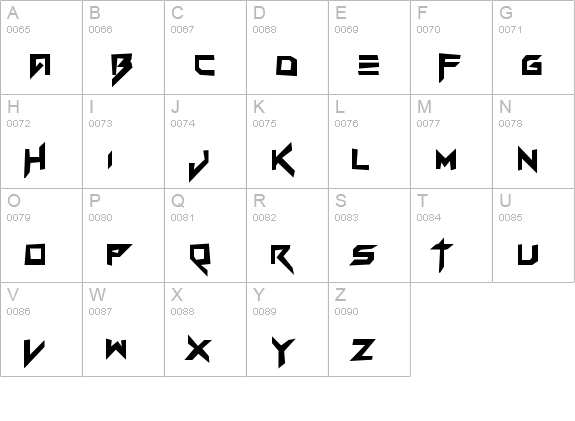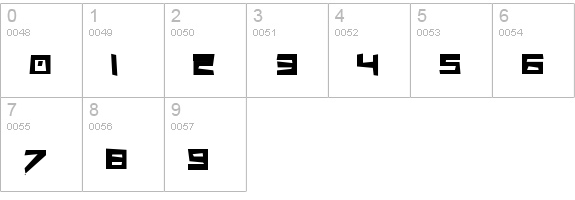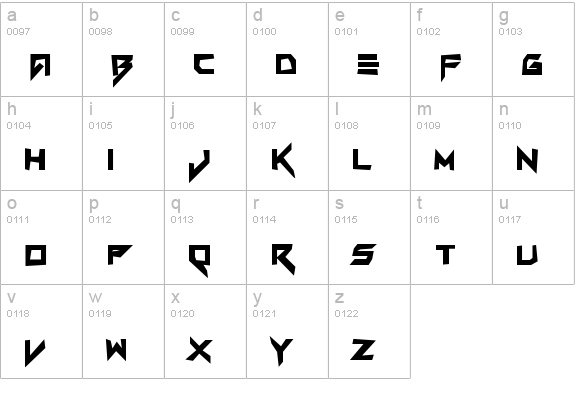
Vermin Vibes Corrupto Font Details
Vermin Vibes Corrupto font is a striking and edgy typeface that brings a unique and rebellious vibe to any design project. With its distorted and corrupted aesthetic, this font is perfect for adding a touch of urban grit to posters, logos, and other creative works. The Vermin Vibes Corrupto font is available for free download at FontsMarket.com, making it easily accessible for designers looking to add a bold and unconventional element to their projects. Embrace the rebellious spirit of this font and unleash your creativity with Vermin Vibes Corrupto.